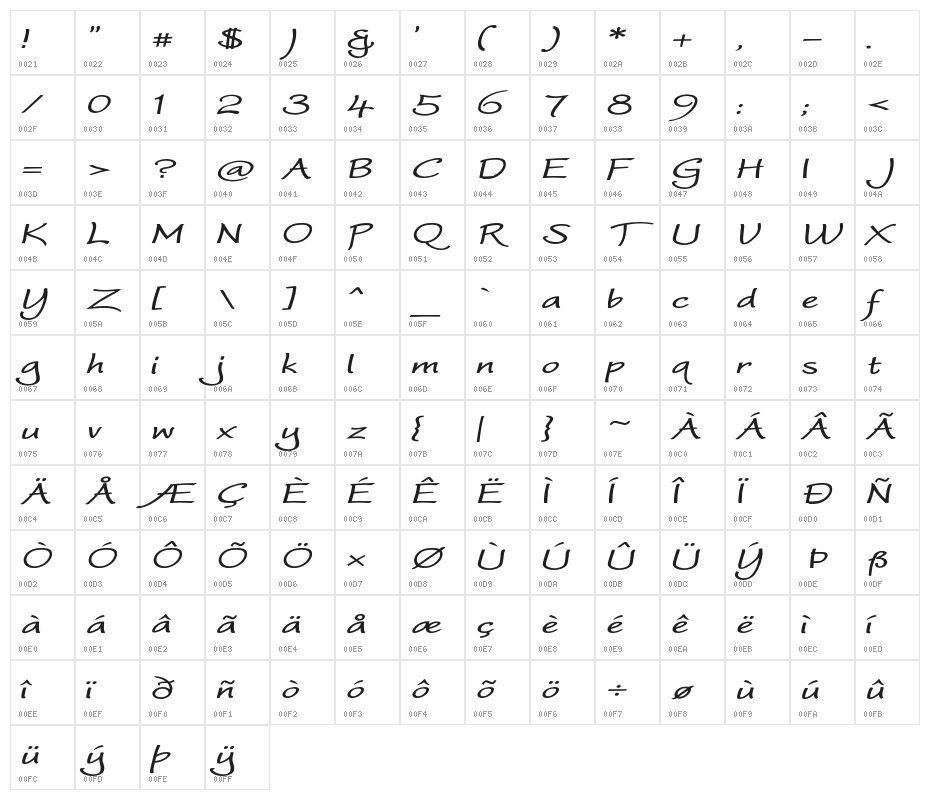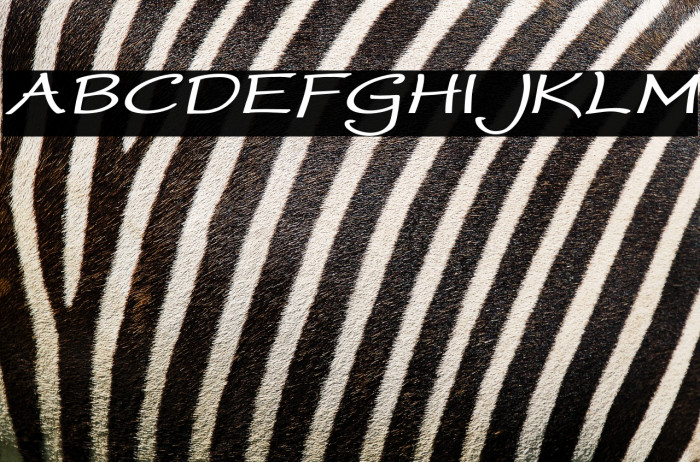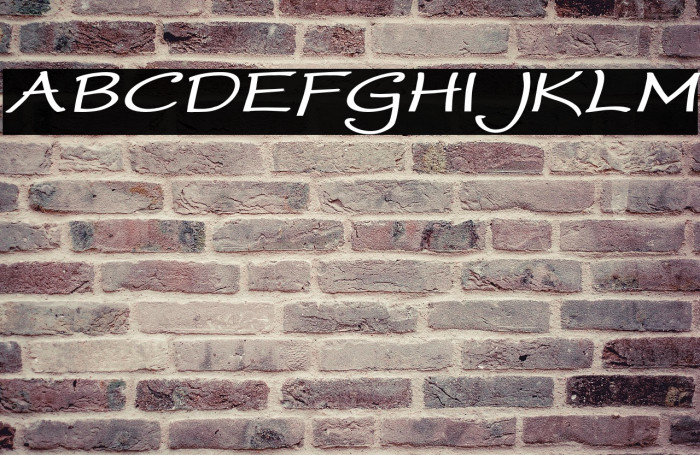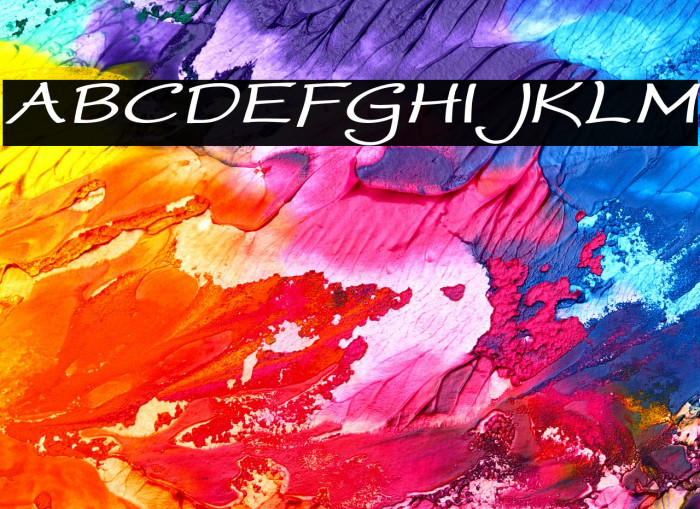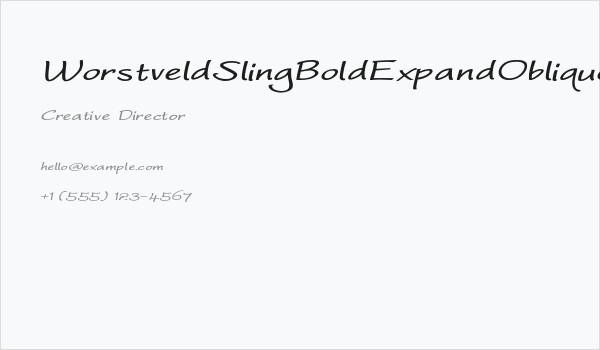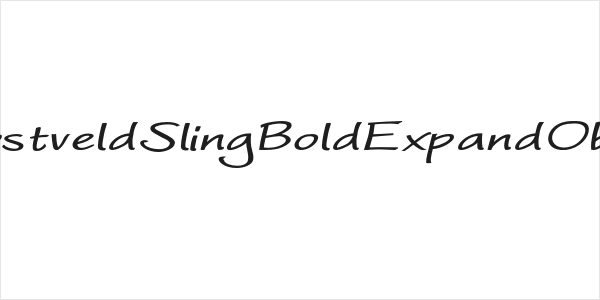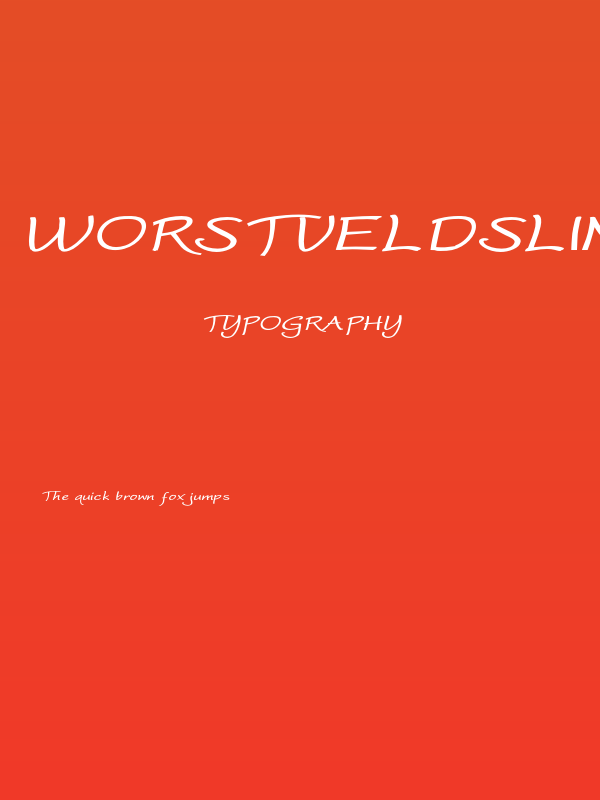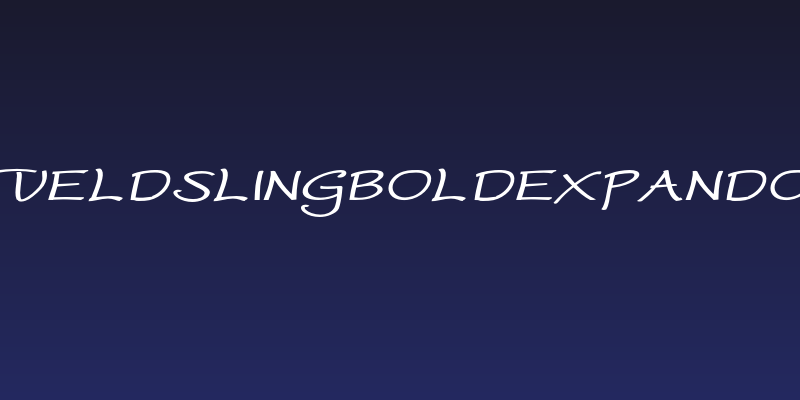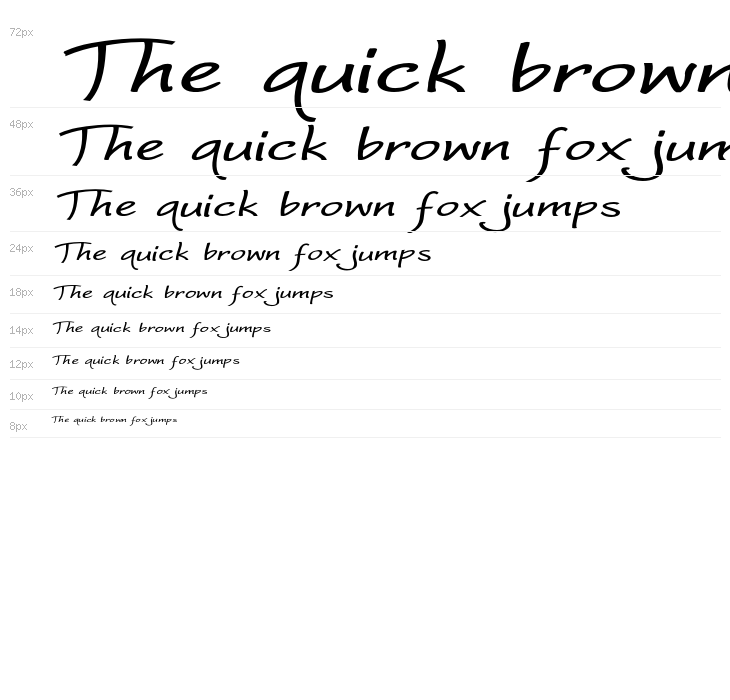
WorstveldSlingBoldExpandOblique Font
WorstveldSlingBoldExpandOblique Description
This font exhibits a dynamic and flowing style, characterized by its oblique orientation and expanded width. The strokes are bold, providing a strong visual impact, while maintaining a sense of elegance and fluidity. The characters are slightly slanted, enhancing the sense of motion and energy. The uppercase letters are tall and commanding, while the lowercase letters maintain a consistent flow, making it suitable for both formal and informal contexts. The numerals are clear and distinct, ensuring readability. Special characters are designed with the same attention to detail, offering versatility in various design applications.